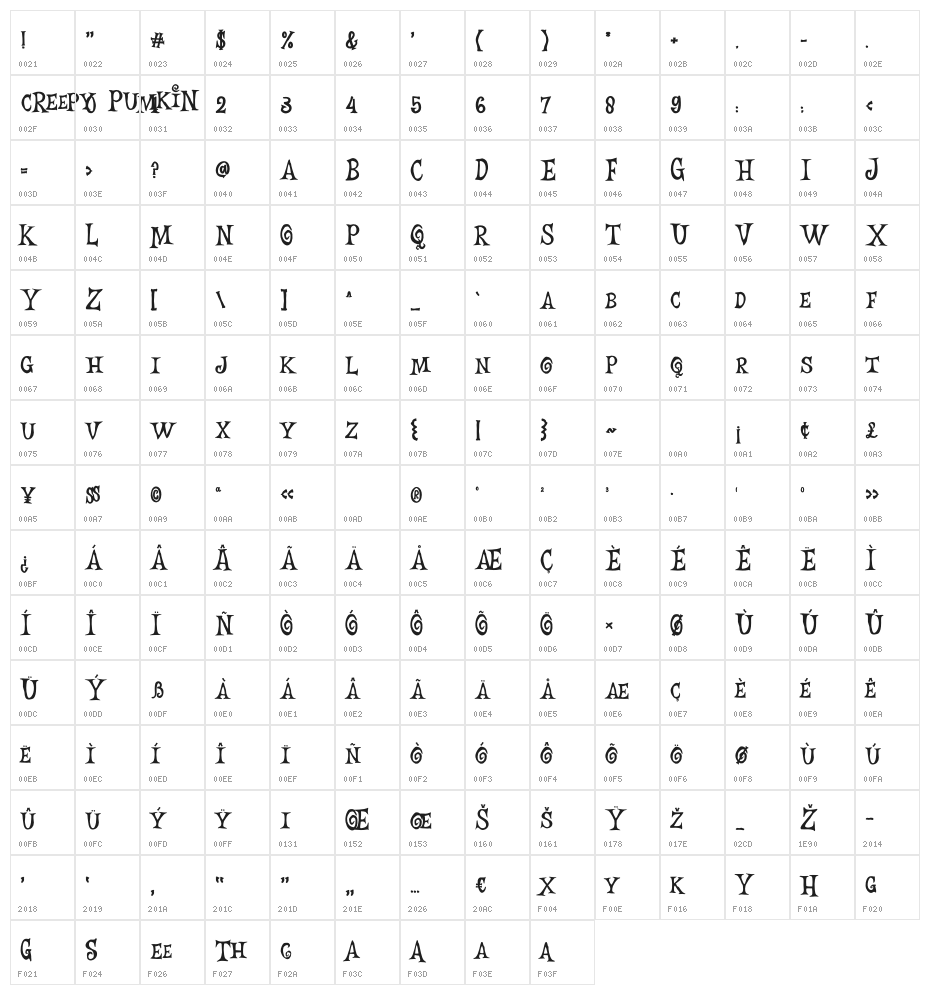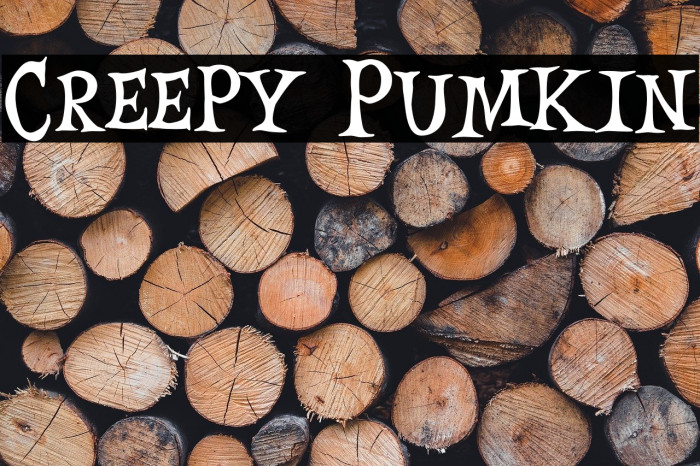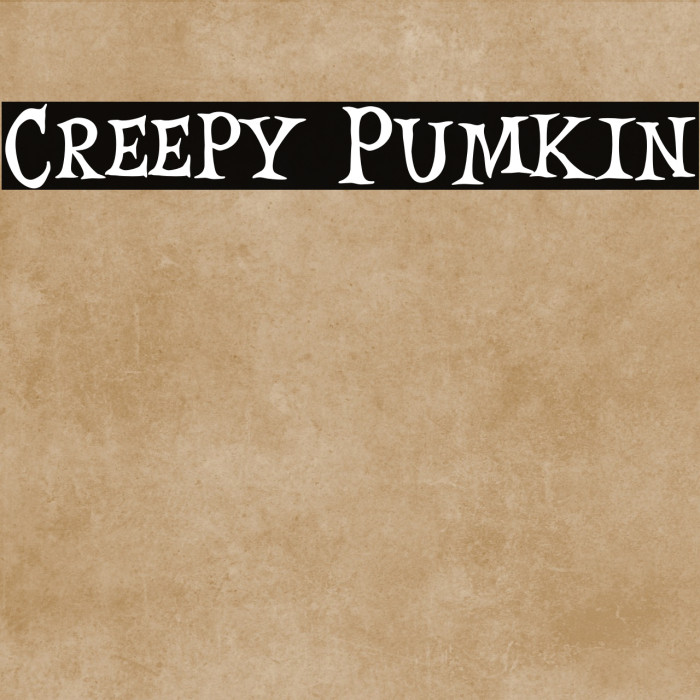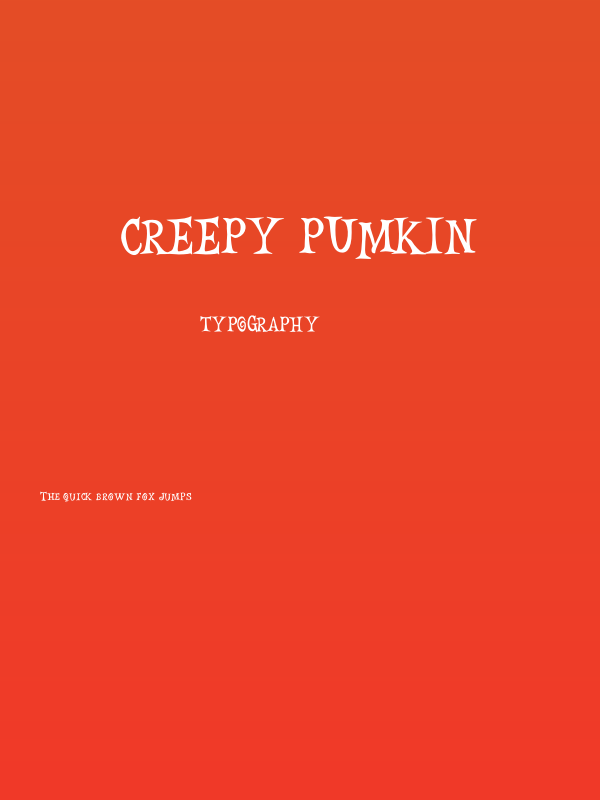
Creepy Pumkin Font
Creepy Pumkin Description
This font exudes a spooky, whimsical charm, perfect for Halloween-themed projects. The letters are characterized by their uneven, jagged edges and playful curves, giving them a hand-drawn, eerie appearance. The uppercase and lowercase letters maintain a consistent style, with some letters featuring unique embellishments like spirals and hooks. The numbers and special characters follow the same quirky design, making the font cohesive and visually intriguing. Its decorative nature makes it ideal for capturing attention and adding a touch of mystery to any design.
| Proposed Projects | Ideal for Halloween invitations, themed posters, haunted house flyers, and spooky merchandise designs. |